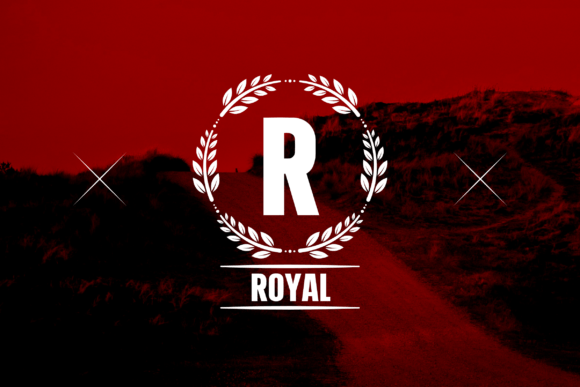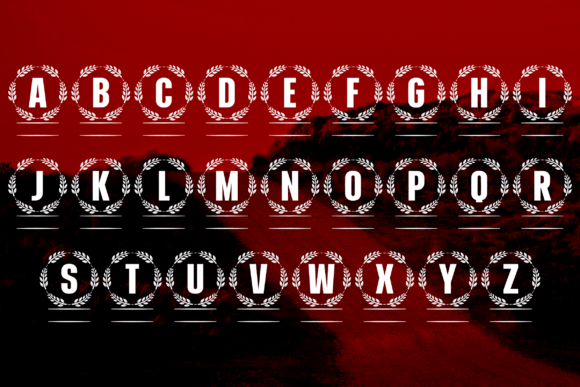
Elevate Your Artistic Expression with the Exquisite Flower Wreath Monogram Font
Are you a designer, crafter, or artist looking to add a touch of elegance and sophistication to your projects? Look no further than the distinctive “Wreath Monogram” font. This beautifully crafted font is designed to bring a sense of refined allure to your designs, making it perfect for a variety of creative endeavors. In this article, we’ll explore the unique features of the Wreath Monogram font and how it can elevate your artistic expression.
A Masterpiece of Typography
The Wreath Monogram font is a masterpiece of typography, painstakingly crafted with precision and attention to detail. The font’s design seamlessly blends charm and elegance, creating a unique and sophisticated style that is sure to impress. Each letter is carefully crafted to resemble a delicate flower wreath, adding a touch of whimsy and romance to your designs.
The Wreath Monogram font offers endless creative possibilities for designers, crafters, and artists. Whether you’re working on a wedding invitation, birthday presentation, or any other project, this font is sure to add a touch of classy elegance. The font’s versatility makes it perfect for a variety of design styles, from traditional to modern and everything in between.
Perfect for Wedding Invitations and Special Occasions
One of the most popular uses for the Wreath Monogram font is in wedding invitations and special occasion designs. The font’s elegant and sophisticated style makes it perfect for formal events, adding a touch of romance and whimsy to your designs. Imagine creating beautiful wedding invitations, save-the-date cards, or thank-you notes that set the tone for a special day.
Add a Touch of Intimate Warmth to Your Designs
In addition to its elegant style, the Wreath Monogram font also adds a touch of intimate warmth to your designs. The font’s delicate flower wreath design creates a sense of coziness and friendliness, making it perfect for birthday presentations, baby shower invitations, and other special occasions.
More than a Medium of Communication
The Wreath Monogram font is more than just a medium of communication – it’s a way to express your unique style and creativity. This font emanates a potent dash of individuality, infusing your designs with a sense of personality and flair. Whether you’re a professional designer or a DIY crafter, the Wreath Monogram font is sure to help you stand out from the crowd.
Key Features of the Wreath Monogram Font
- Unique and sophisticated design: The Wreath Monogram font features a distinctive flower wreath design that adds a touch of elegance and refinement to your projects.
- Versatile and adaptable: The font is perfect for a variety of design styles, from traditional to modern and everything in between.
- Perfect for special occasions: The font is ideal for wedding invitations, birthday presentations, and other special occasions.
In conclusion, the Wreath Monogram font is a beautiful and sophisticated addition to any design project. Its unique flower wreath design, versatility, and adaptability make it perfect for a variety of creative endeavors. Whether you’re a designer, crafter, or artist, this font is sure to elevate your artistic expression and add a touch of classy elegance to your projects. So why wait? Download the Wreath Monogram font today and start creating stunning designs that showcase your unique style and creativity.